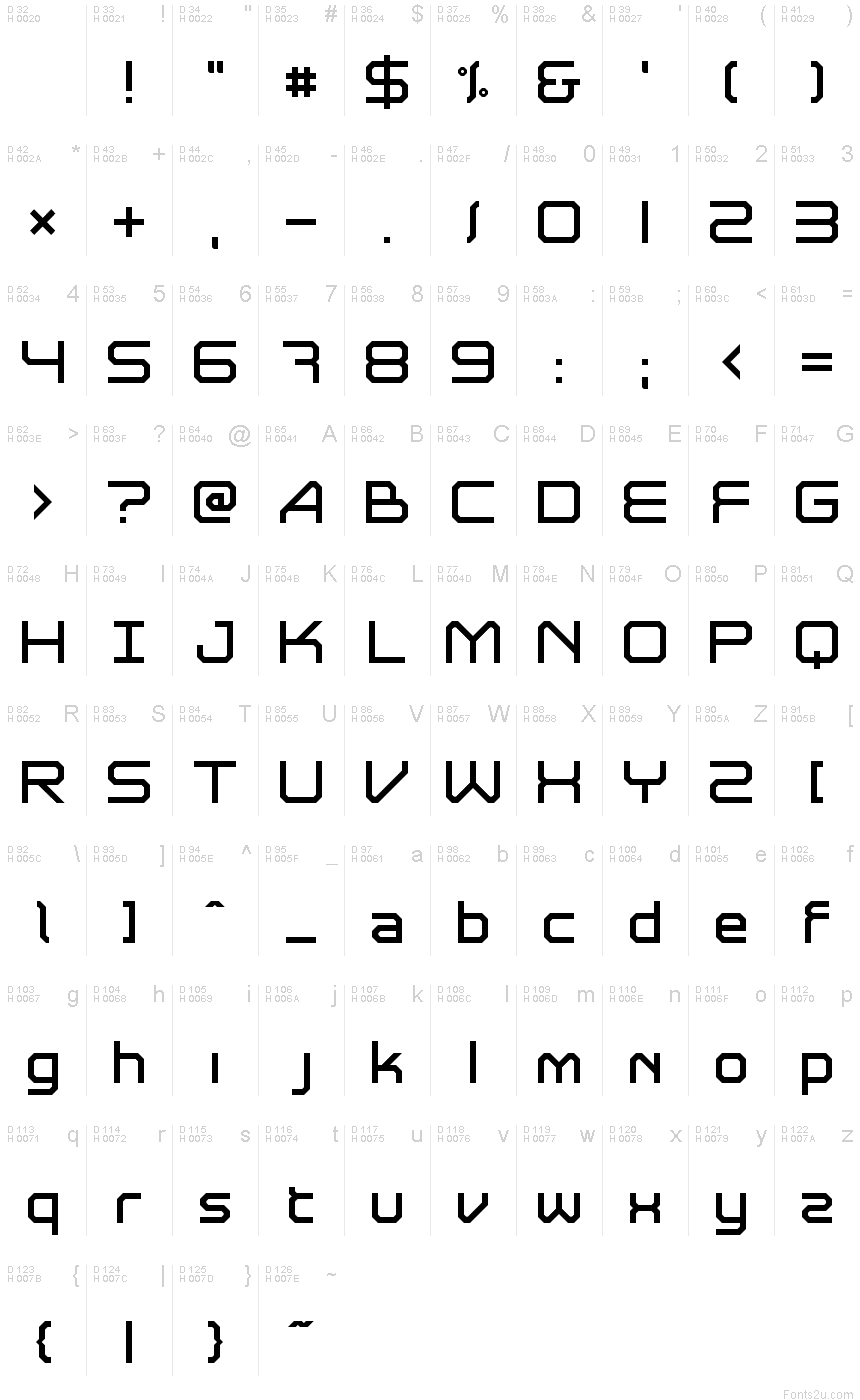
Astrolyte
Astrolyte font by Andreas Nylin is a free futuristic display font; this techno typeface feels like it was cut from a single strip of metal, with squared curves and clean, circuit-like joins. Its wide stance and steady rhythm keep words readable while still giving you that HUD-on-a-spaceship vibe. The shapes look crisp and laser-cut, even at smaller sizes.
Using Astrolyte, try game titles, sci‑fi posters, esports logos, tech event flyers, app splash screens, album covers, merch graphics, and YouTube thumbnails. Give it breathing room and bump tracking slightly for a sleeker flow; pair it with a plain neo‑grotesk sans for body copy so Astrolyte stays the headline hero.